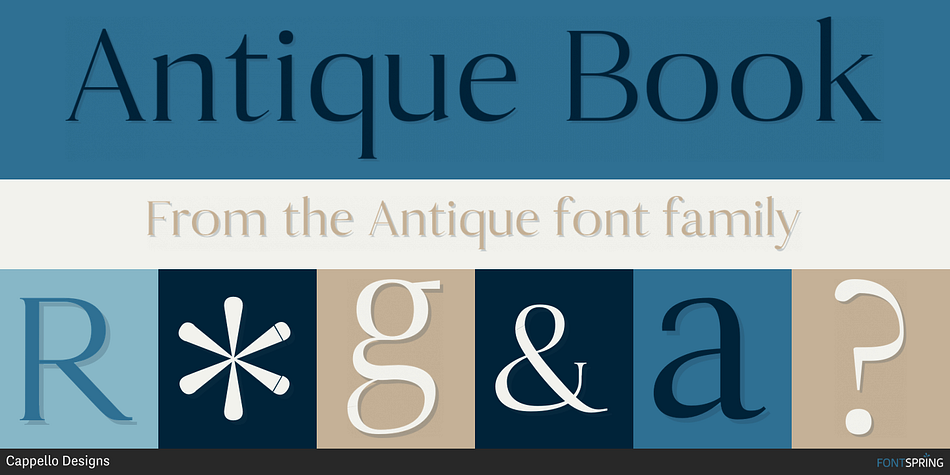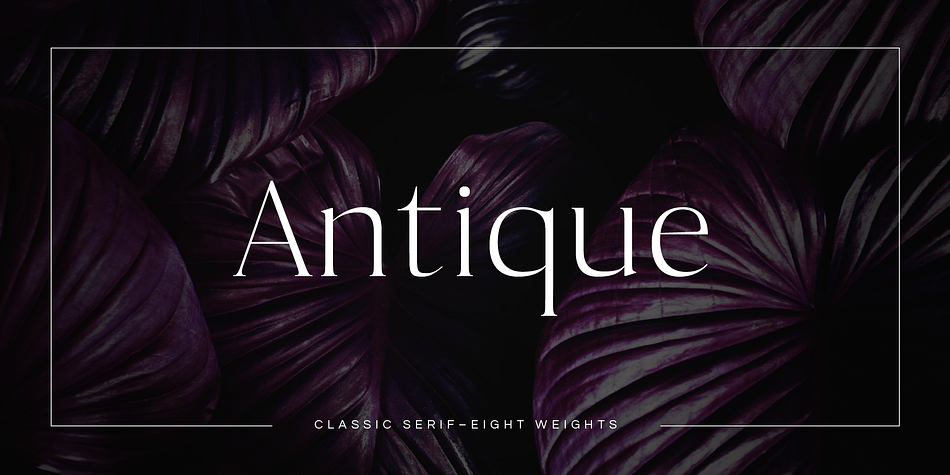
Antique Book
Designed by Cassandra Cappello, Antique is a display serif and serif font family. This typeface has eight styles and was published by Cappello Designs.
Antique is a classic and slightly curved serif typeface. It’s a modernized cross between Transitional and Modern typefaces of the 18th century. Antique is characterized by its small pointed serifs and large x-height.
It has an elegant personality and can be used mainly for headers, but also for body copy in heavier weights. This font family includes all Latin characters (including accents), numbers, special characters, and punctuation.